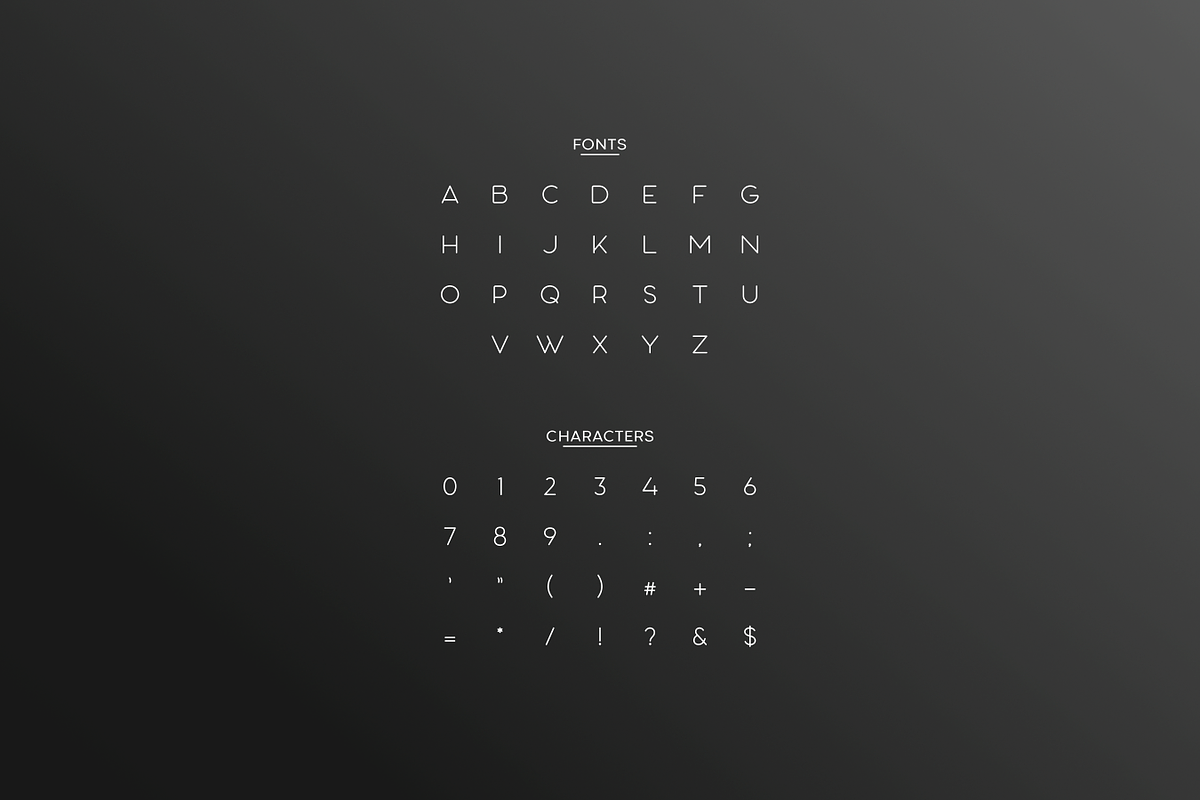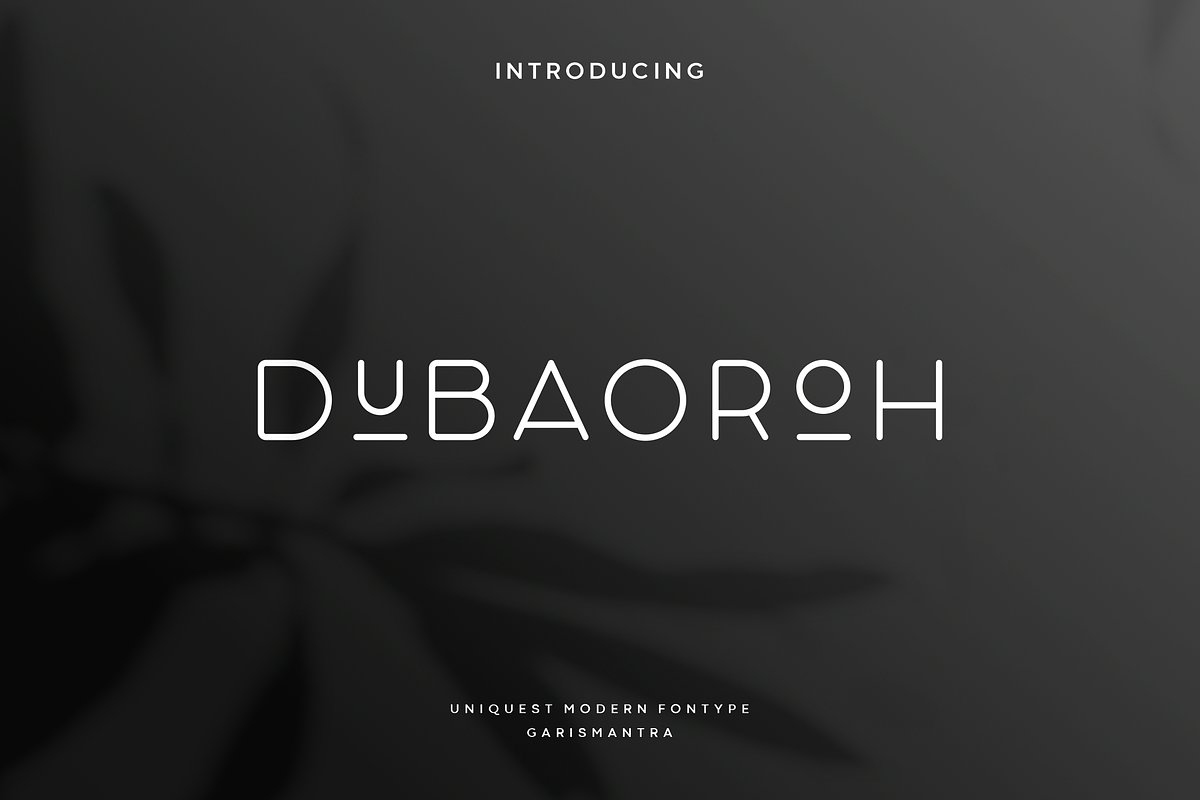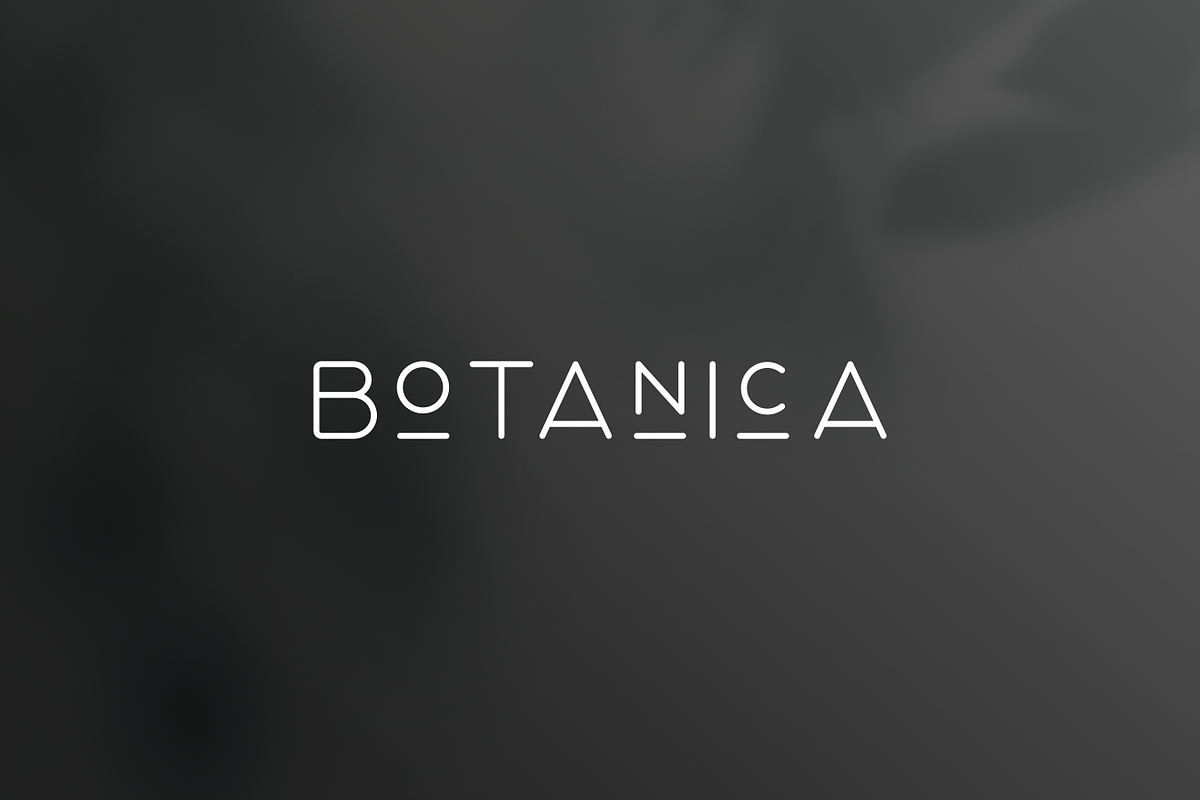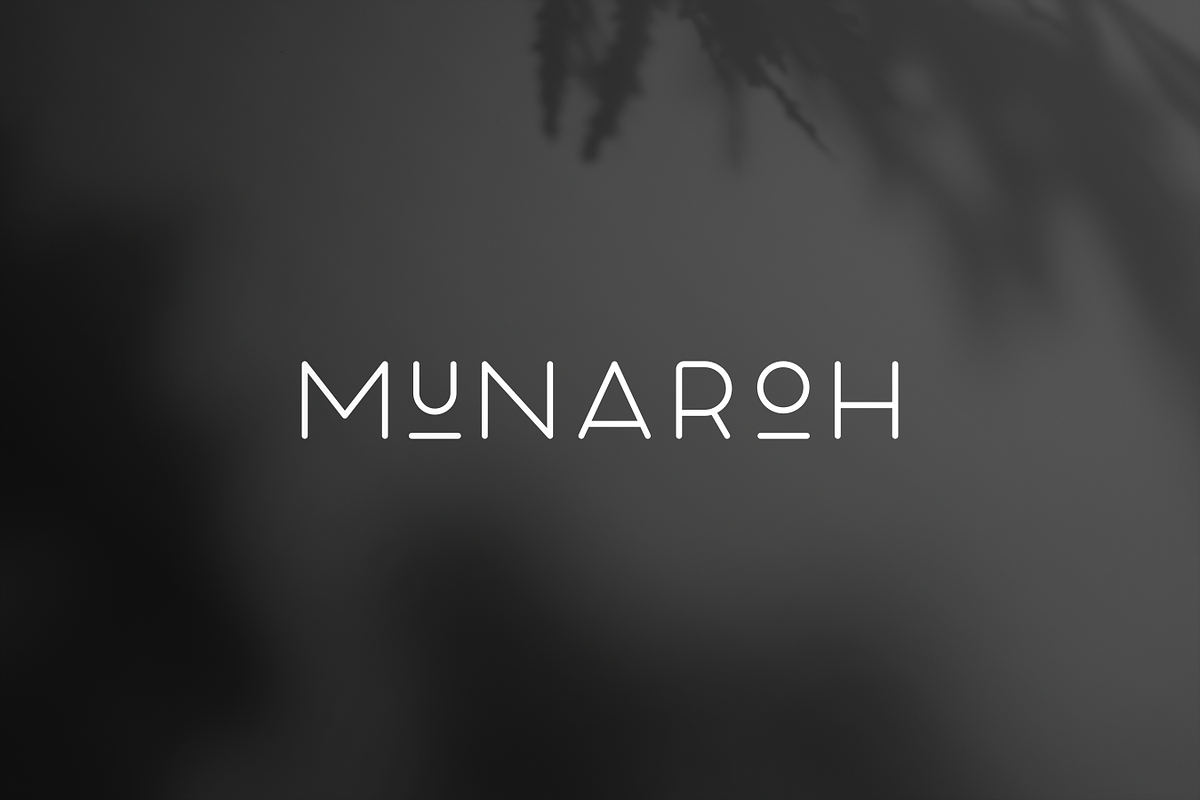
Dubaoroh
Dubaoroh font is display font with a unique style with little improvisation on uppercase mode, although these fonts are all uppercase fonts. This font is perfect for something related to food, illustrations, book titles, website title, writing on video, or anything you can try to gain experience in graphic design needs.